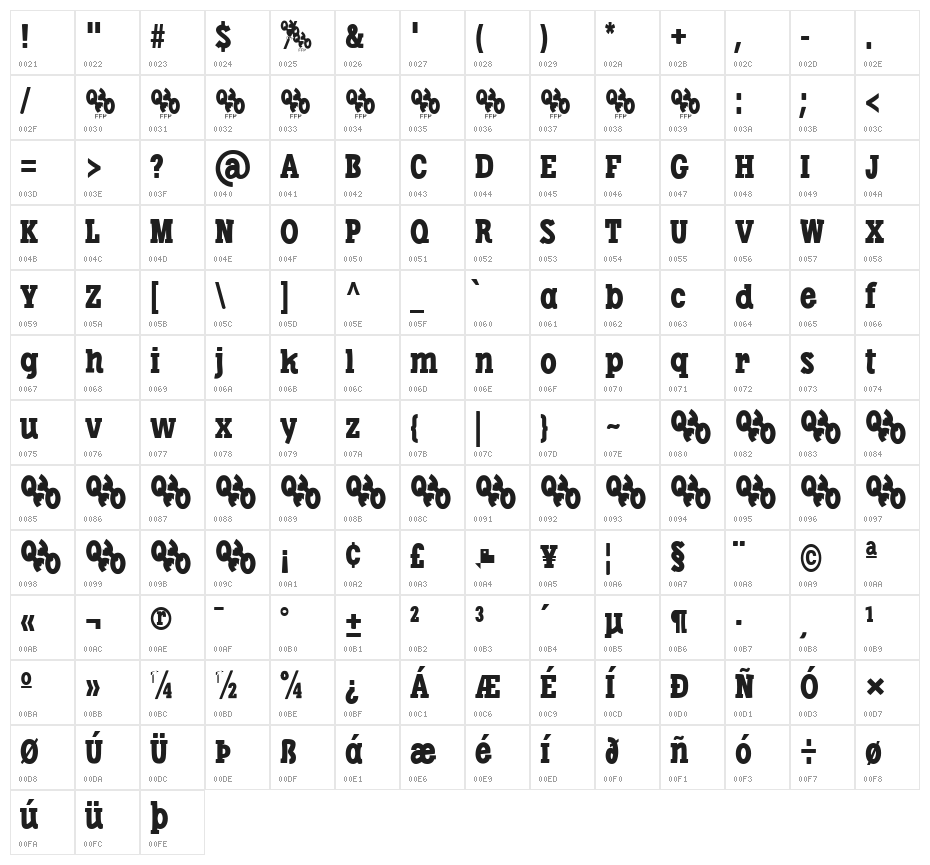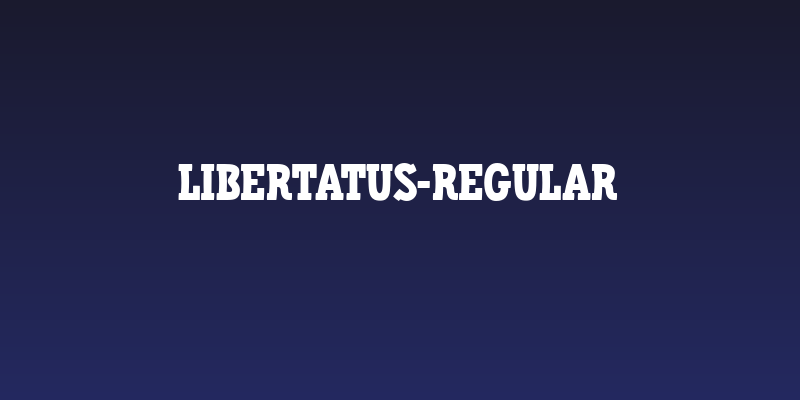
Libertatus-Regular Font
Libertatus-Regular Description
This font features bold, robust characters with a strong presence, making it ideal for impactful designs. The uppercase letters are particularly striking, with thick strokes and a solid structure that conveys strength and confidence. The lowercase letters maintain this boldness while offering a slightly softer edge, providing a nice balance. The numerals are equally bold, ensuring they stand out in any context. Special characters are designed with the same attention to detail, ensuring consistency across all glyphs. The overall style is reminiscent of classic serif fonts but with a modern twist, making it versatile for various applications.
| Proposed Projects | Ideal for headlines, posters, branding, and any design requiring a strong visual impact. |